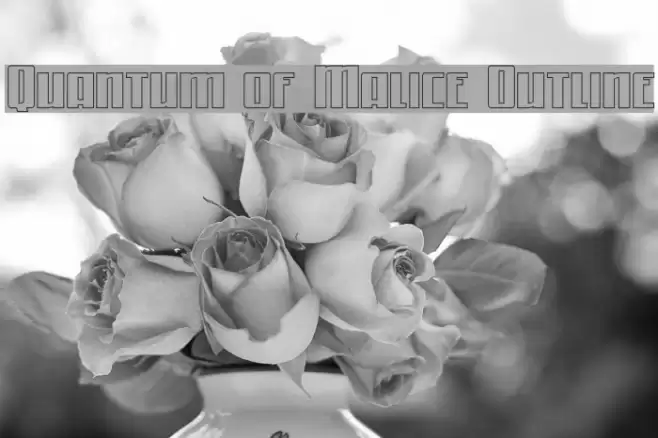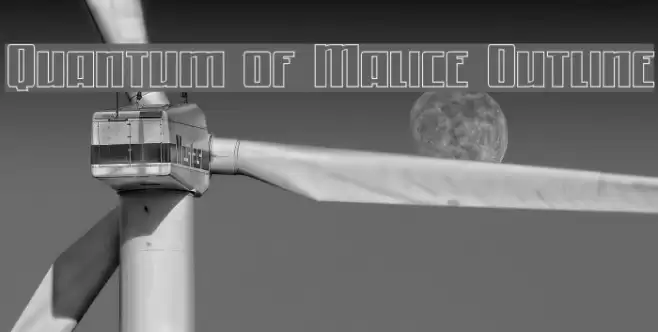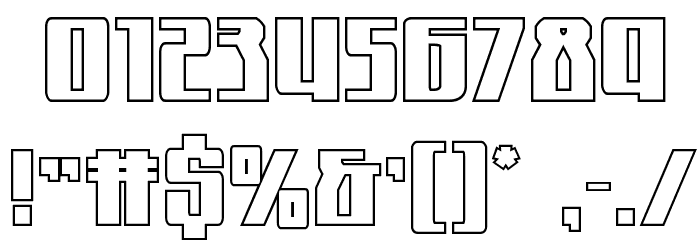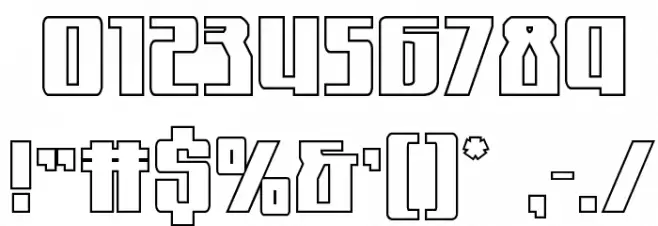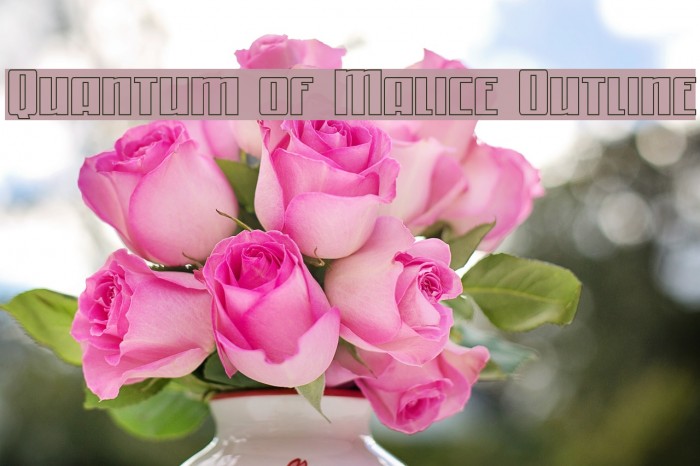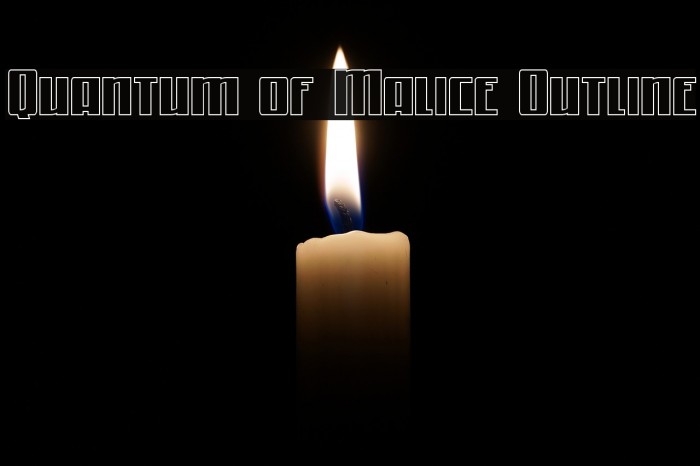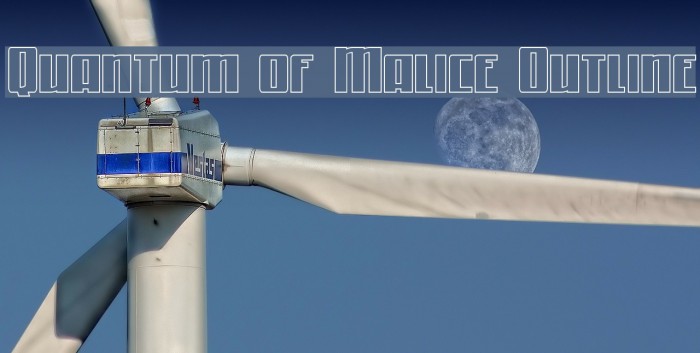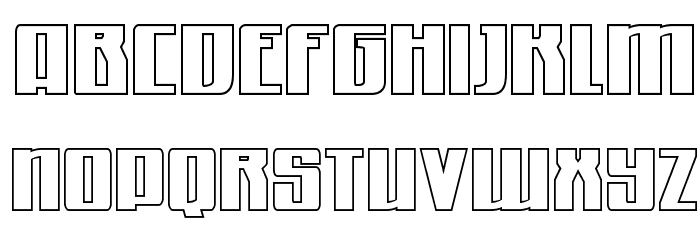
Quantum of Malice Outline Font
Quantum of Malice Outline Description
This font features a bold, geometric outline style that gives it a futuristic and edgy appearance. The characters are constructed with sharp angles and straight lines, creating a sense of precision and modernity. The uppercase and lowercase letters maintain a consistent height, contributing to a uniform and cohesive look. The numbers and special characters are designed with the same angular and outlined aesthetic, ensuring visual harmony across all elements. This font's unique outline design makes it stand out, while its structured form provides clarity and readability.
A bold, geometric outline font with a futuristic and edgy style from Uncategorized fonts.
- Proposed Projects: Ideal for sci-fi themed projects, video game titles, posters, and branding that requires a modern and striking appearance.